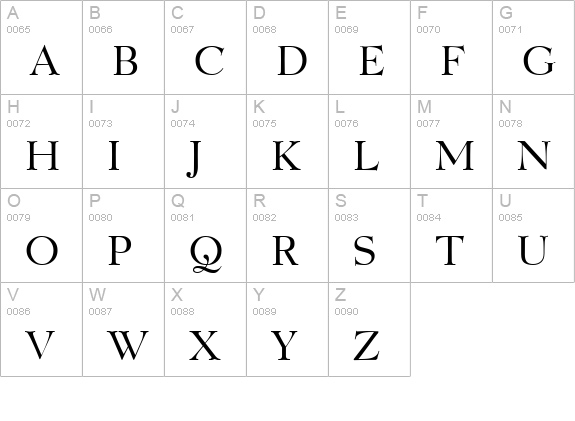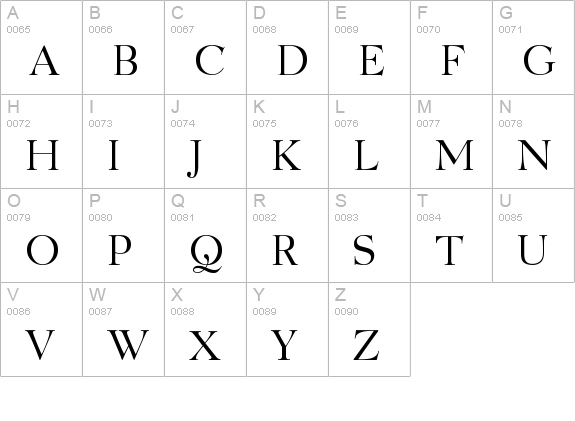
QuartierBook Font Details
QuartierBook font is a beautifully designed typeface that strikes the perfect balance between elegance and readability. With its sleek and modern aesthetic, QuartierBook is suitable for a wide range of design projects, from branding to editorial design. This versatile font features clean lines and a timeless appeal that will enhance any text or headline it is applied to. Whether you are working on a print publication or a digital project, QuartierBook will bring a touch of sophistication and style to your work. And the best part? QuartierBook is completely free to download at FontsMarket.com! This means you can easily add this high-quality font to your collection without any cost. Don't miss out on the opportunity to elevate your designs with QuartierBook font today.